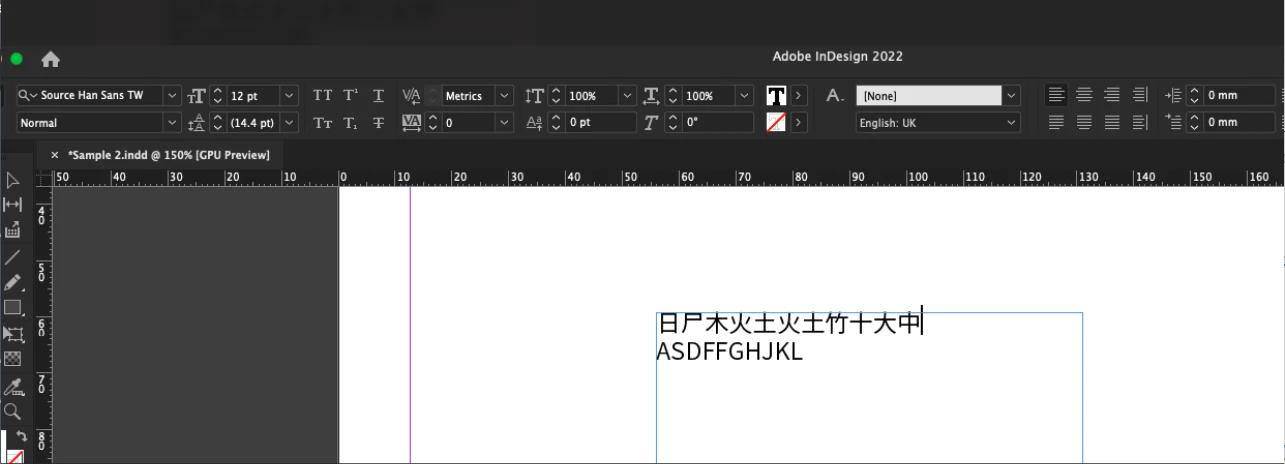
Chinese Fonts with incorrect punctuation spacing
Our company used to use Ping Fang (mostly because of the wide range of weights and also being available in TC and SC). With Adobe's font changes, I've been searching for a replacement. 'Source Han Sans' appeared to be a good substitute, but when I use it in InDesign the punctuation spacing is very tight. (Close to how we would place it in english, but chinese uses the same space for all characters. Any idea how to fix this? The preview text on the adobe fonts website shows correctly.
We are sorry for the delay in response. I am unable to reproduce the issue at my end.  Is it possible for you to share the screenshot of how it's appearing in InDesign? Is the same happening with other Adobe applications like Photoshop, Illustrator? Please also share the details of your operating system.
Which language keyboard you're using as mentioned below?
I have attached the screenshot of how it's appearing at my end.
Thank you for the response Harshika! Atached is a screenshot of the punctuation spacing I'm talking about. My compter is set to English as I don't know chinese. The chinese text is provided by our translation team and I simply copy and paste. They tell me, however that this spacing is incorrect so I need to come up with a font that works the same as Ping Fang used to, or find a work-around.
I tried it in psd as well and it has the same problem. I'm on Indd 17.1 and runnning Big Sur 11.6 OS. I had a coworker test it who is running the new 'Monterey' OS and she had the same problem.